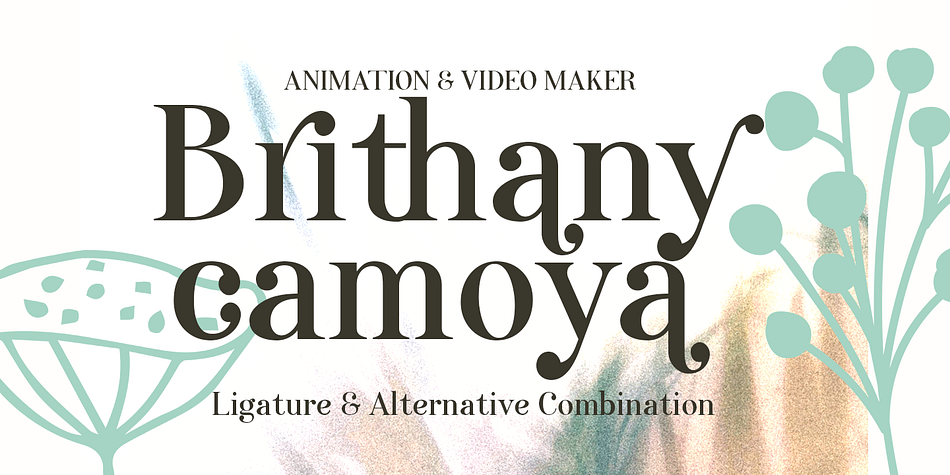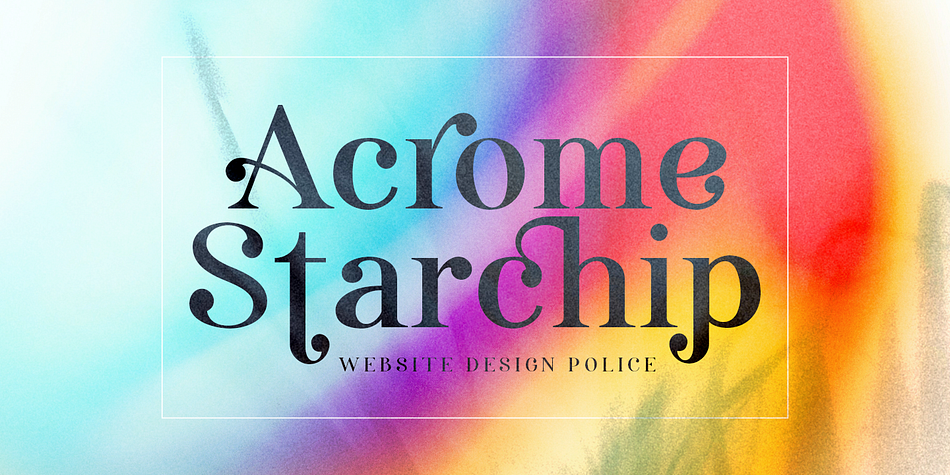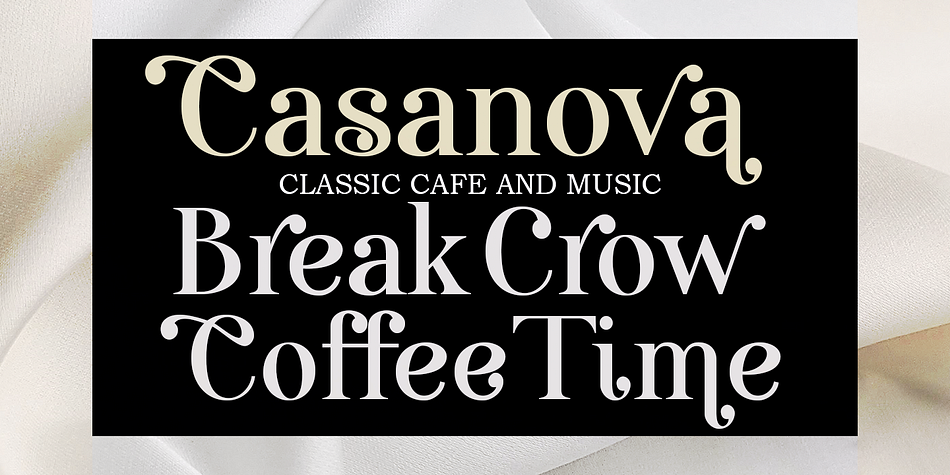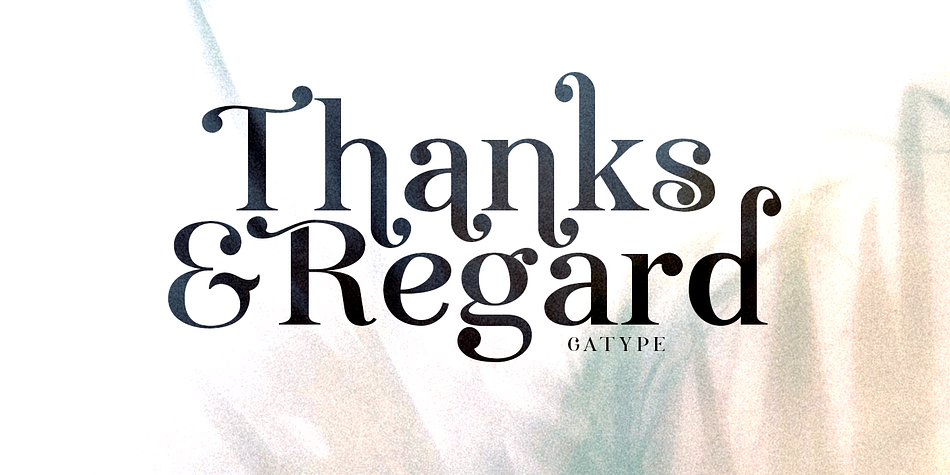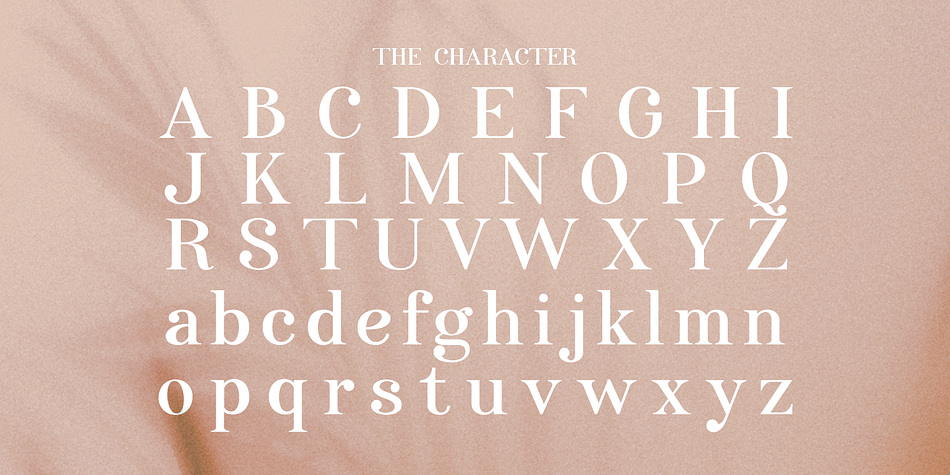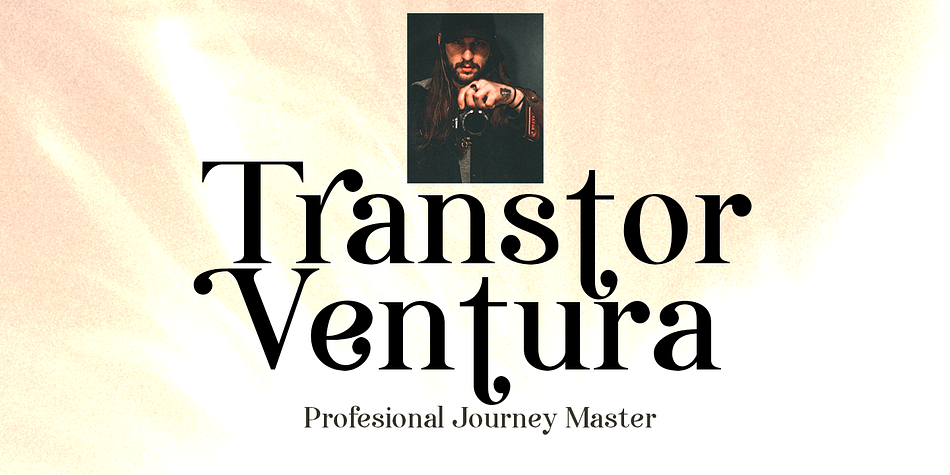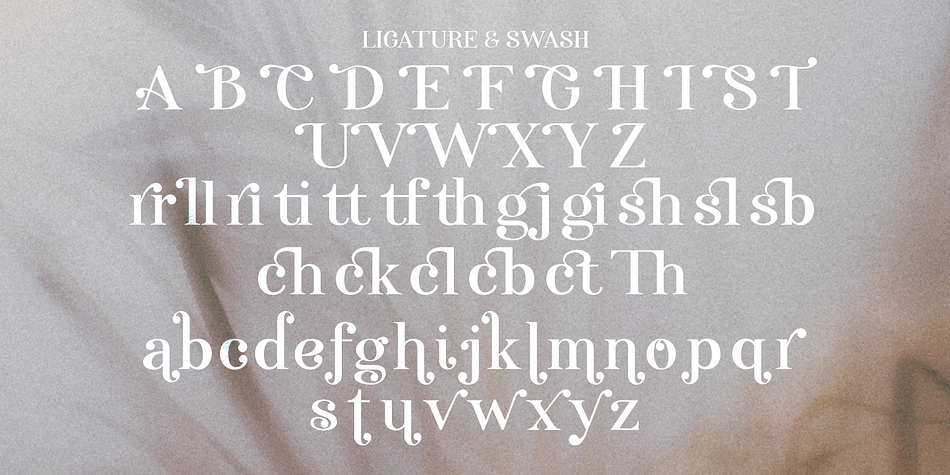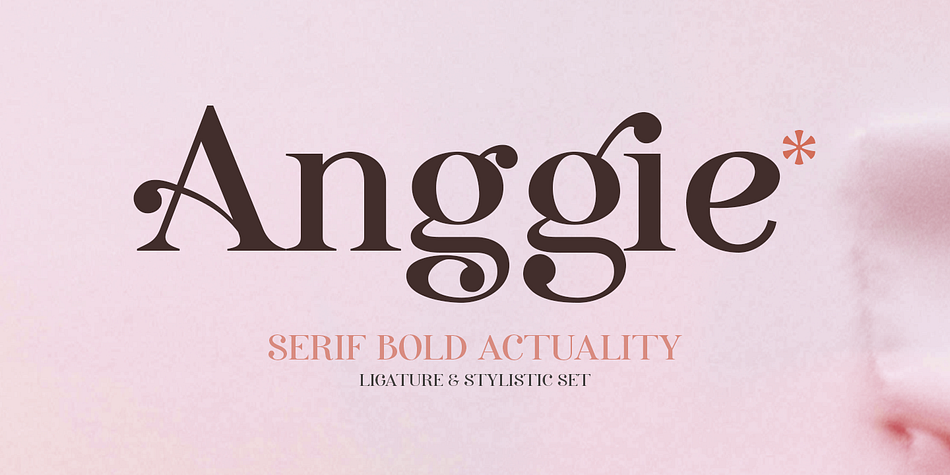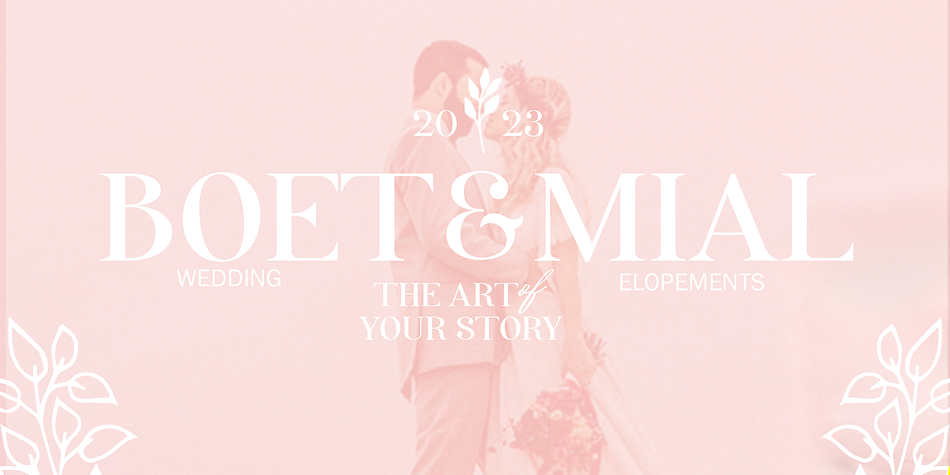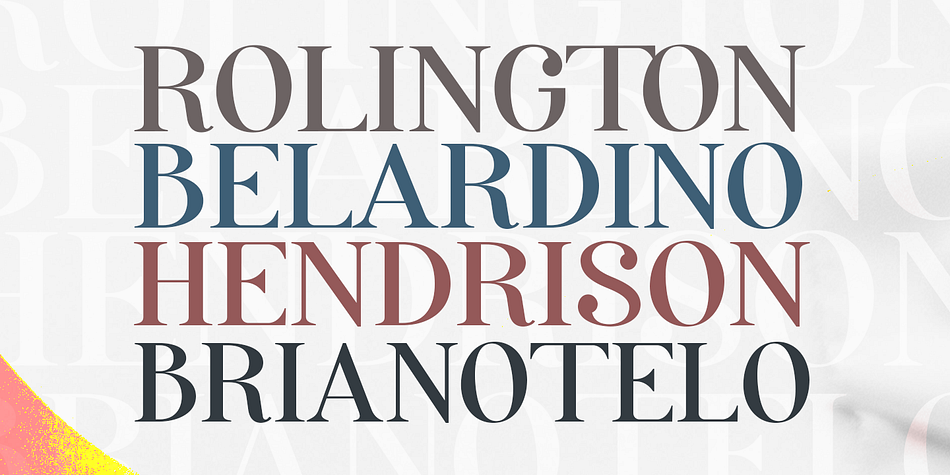
Anggie Display
Anggie Display is a display serif font family published by Gatype.
Anggie Display is an elegant script with a creative mood and perfect form, inspired by today’s beautiful serif Display. thick, balanced and varied, born for luxury and beauty.
In my example I show how this script can be used. It’s great for logotypes, branding, wedding invitations, romantic cards, alcohol labels, packaging, name spelling and more.
Anggie Displaycomes with beautiful uppercase and lowercase letters, numbers, and punctuation. In addition to the main character set, there are many alternative characters, early and late sweeps.
Multilingual. . Ligature. . Swash. . Stylistic Set.